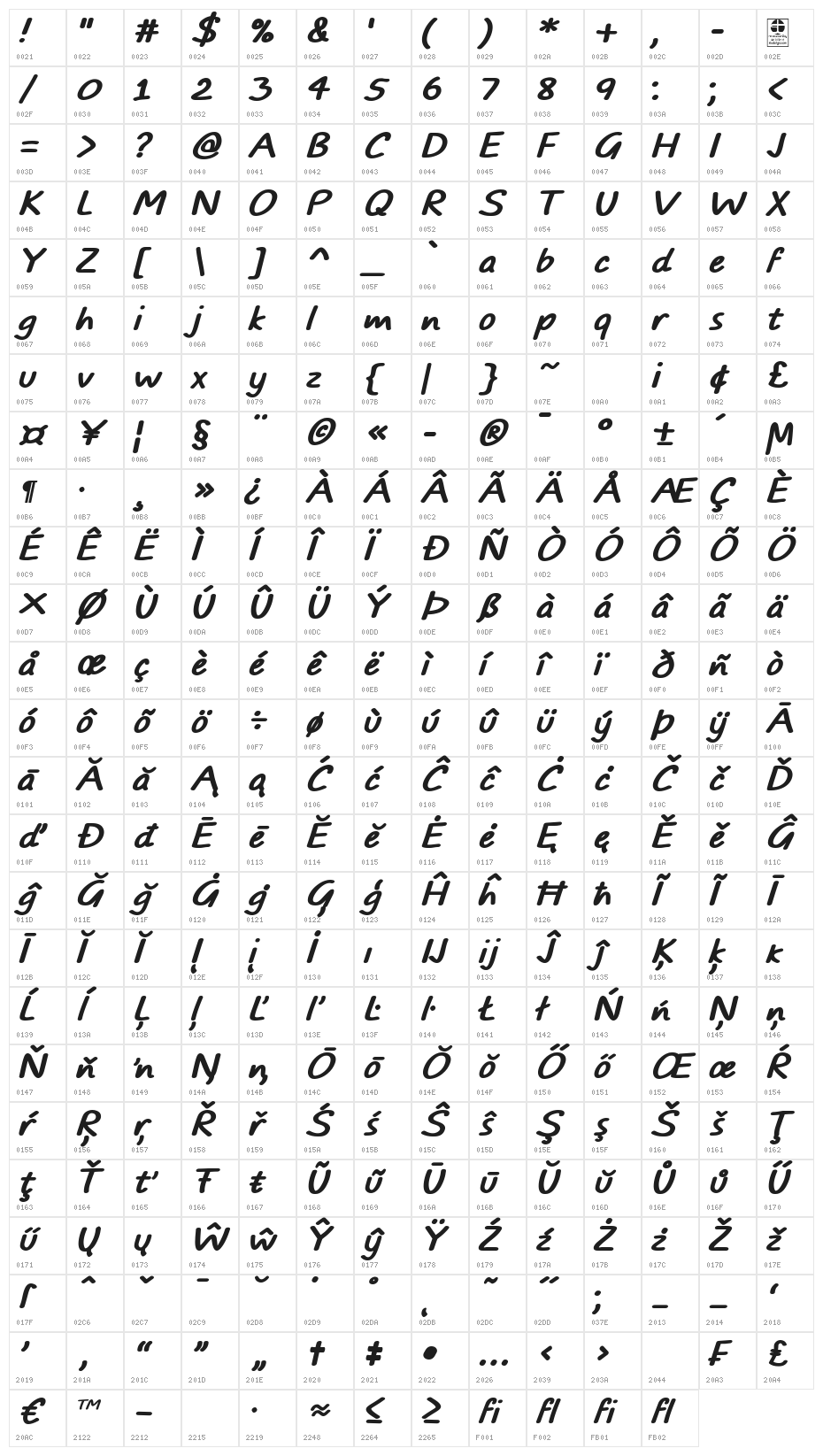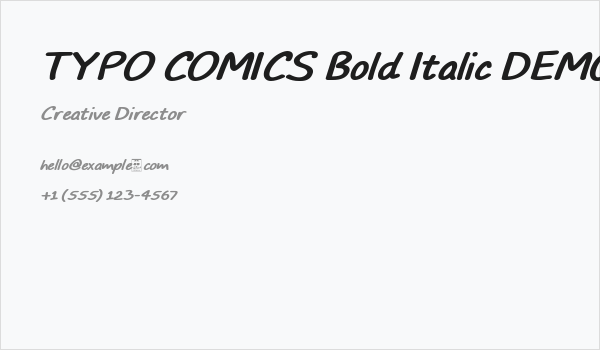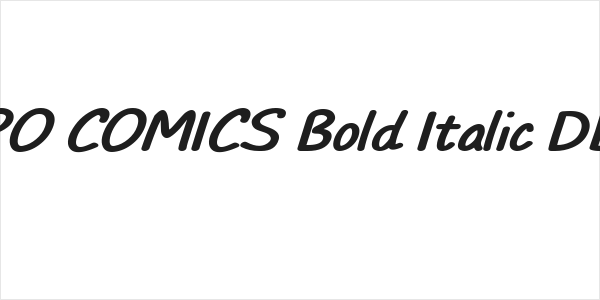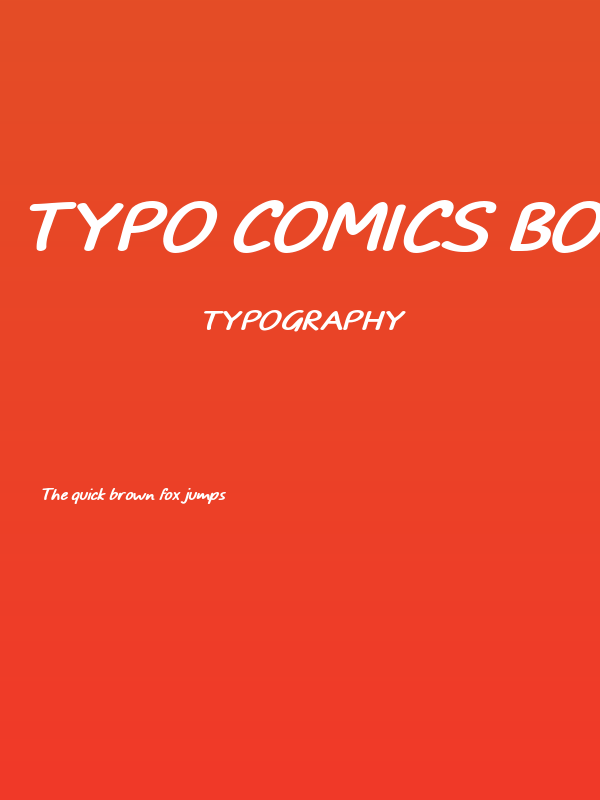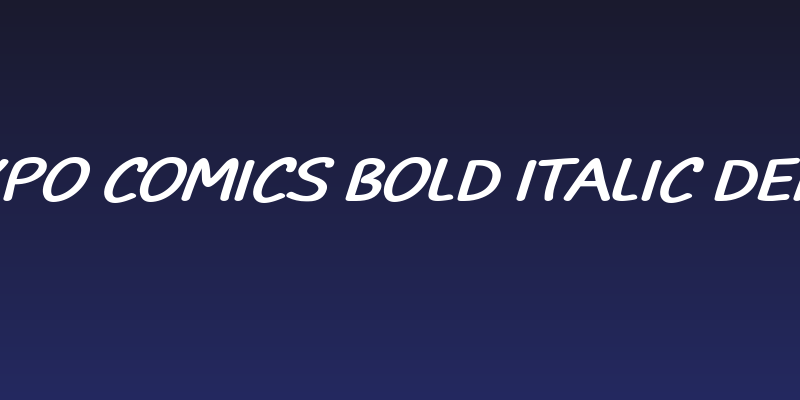
TYPO COMICS Bold Italic DEMO Font
TYPO COMICS Bold Italic DEMO Description
This font features a bold and italic style with a playful, comic-inspired aesthetic. The characters are rounded and slightly slanted, giving a sense of motion and energy. The uppercase and lowercase letters are well-balanced, with consistent stroke thickness throughout. Numbers and special characters maintain the same lively style, making the font versatile for various uses. The overall appearance is friendly and approachable, suitable for informal and creative projects.
| Overall Style | Playful, Comic |
| Proposed Projects | Ideal for comic books, children's books, playful branding, posters, and casual invitations. |